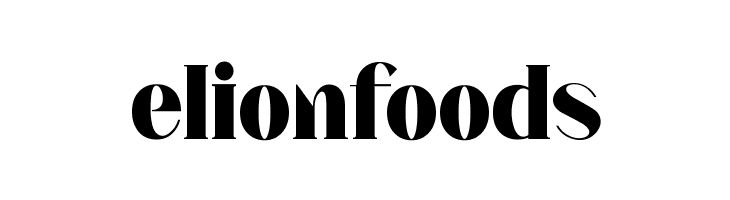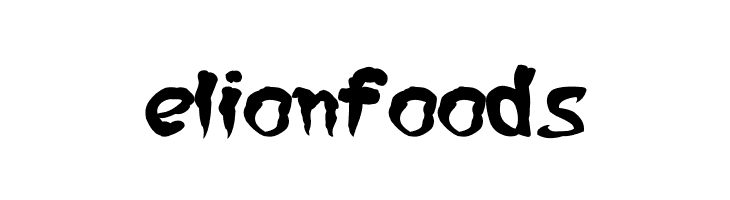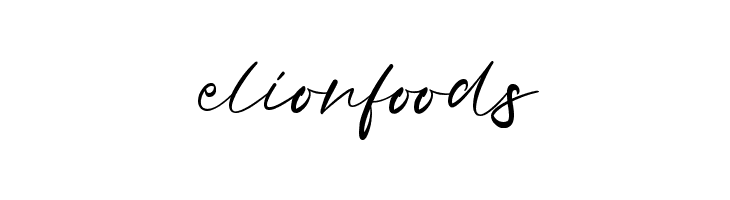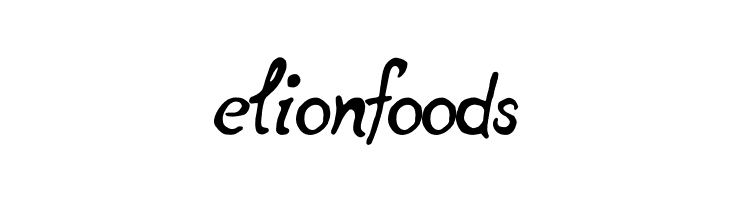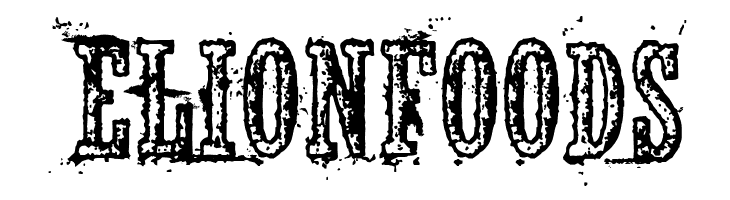
A fluid, elegant handwritten script with smooth, flowing lines.
A bold, hand-drawn font with irregular, jagged edges and dynamic strokes.
A playful, handwritten font with a whimsical and unique style.
A whimsical and playful script font with decorative loops and swirls.
A playful, hand-drawn script font with dynamic strokes and whimsical flourishes.
A decorative font featuring detailed illustrations of Notre Dame Cathedral for each character.
A decorative font inspired by Notre Dame's Gothic architecture.
A bold, graffiti-style font with angular, dynamic letterforms.
A bold, high-contrast font with elegant curves and sharp angles.
A bold, distressed serif font with a vintage, grunge aesthetic.